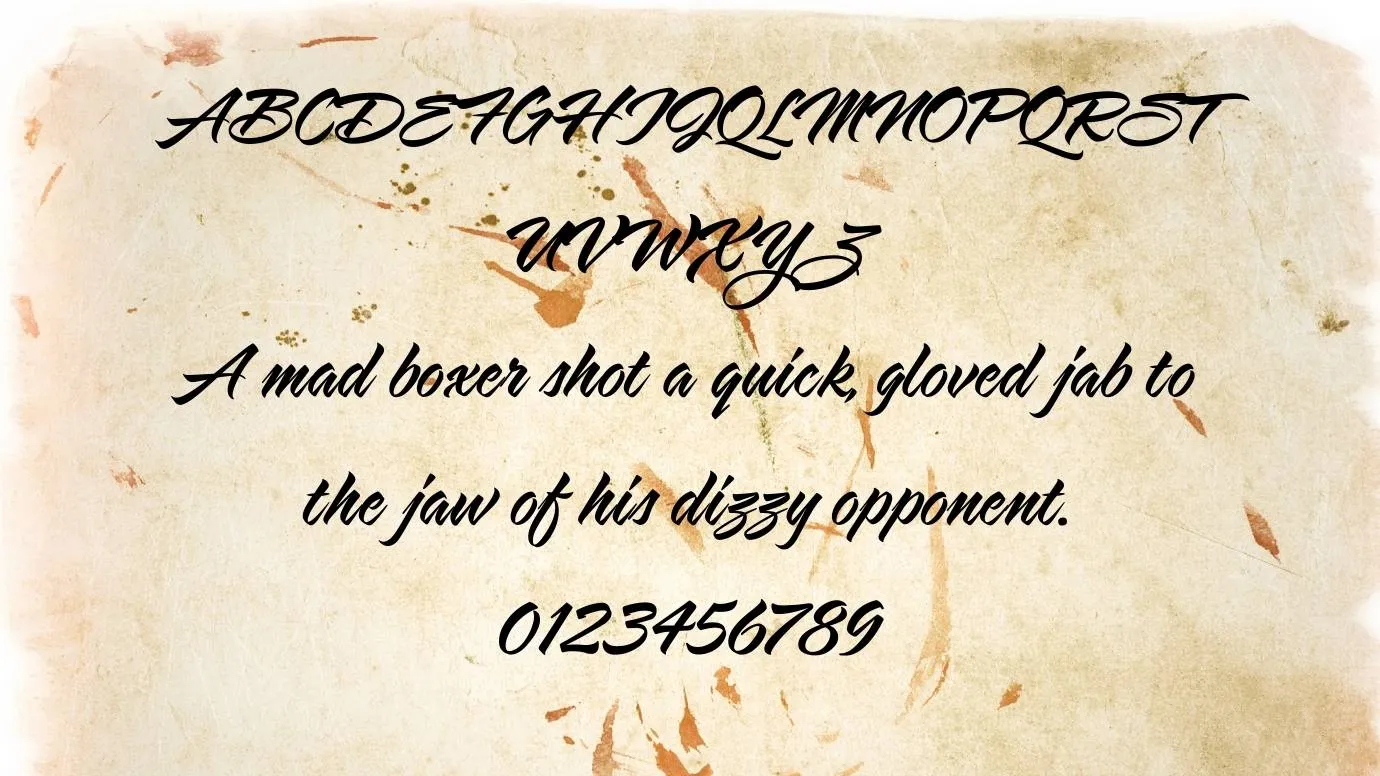
Sarah Script font is a family member of the script family, the style of this typeface looks handwritten. This texture is published on the 11th of August 2003. which is published by one of the great and popular publishers and known as Borges Lettering. this amazing typeface incorporates 1 style of character, which looks stunning is there design and style.
This is one of the best typefaces from the date of release and from that time it becomes popular because every designer and company did like to use this typeface. Moreover, this is an eye-catching typeface for readers and viewers, that’s the reason where it touches the top there for the designers put this typeface in their priority for oncoming projects as Atatrk font.
This advanced, amazing, and stunning texture has unlimited usage as it gains popularity from the viewer. it gives amazing results while used in graphical designing, this typeface is a unique design for fashion and creative visualization, It is unique on Websites.
This gives an outstanding look to wedding cards, this makes it lovely to your covers of gifts, party cards, invitation cards. This Typeface makes your design outstanding on T-shirts and jackets and there are so many other projects where this font matches perfectly.
Designer of Sarah Script Font
This stylish, lovely, and handwritten typeface is designed by Charles Borges de Oliveira, and this texture is published by Borges Lettering.
This typeface has been designed with a regular style of font. So, this single style feature includes, capital alphabets, small alphabets, numbers, letters, glyphs, symbols, punctuation, special characters, and language support, All these are included in this single design.
View of Sarah Script Font
| Name | Sarah Script Font |
| Designer | Charles Borges de Oliveira |
| Foundry | Borges Lettering |
What is Sarah Script font?
Sarah Script font is a family member of the script family, the style of this typeface looks handwritten. This texture has published on the 11th of August 2003.
Can I use Sarah Script font in my Logo?
This texture is one of the best choices for designing logos and for every graphical design. this gives an outstanding result whenever you use it in your projects.
What is the Sarah Script font used for?
This typeface is for graphical designing, logos design, gift packing, t-shirt designing, website designing, wedding cards, and many more.